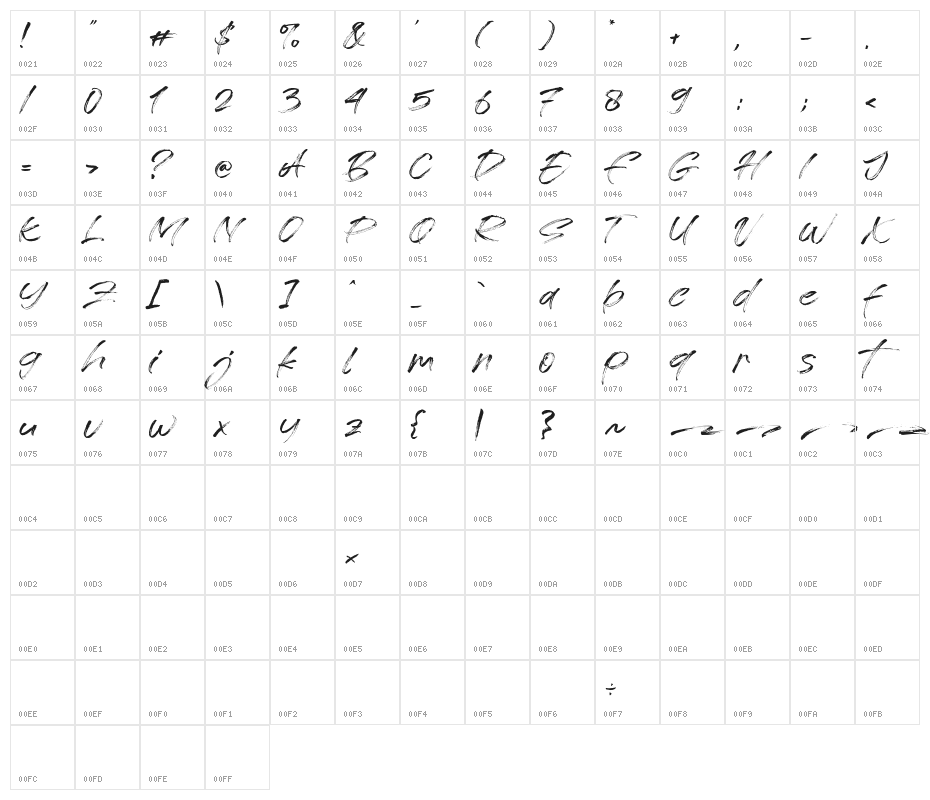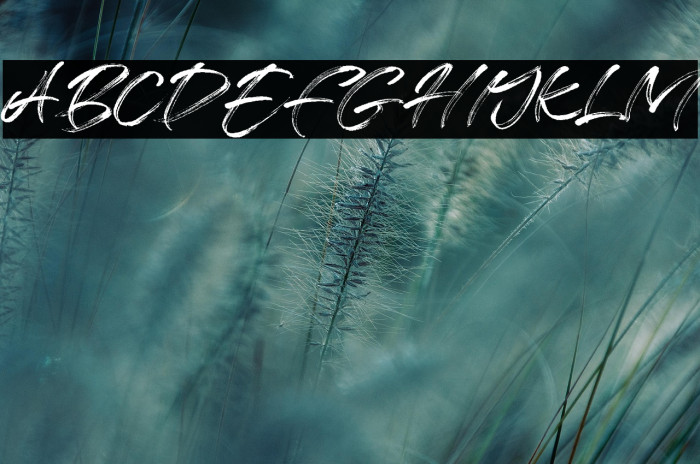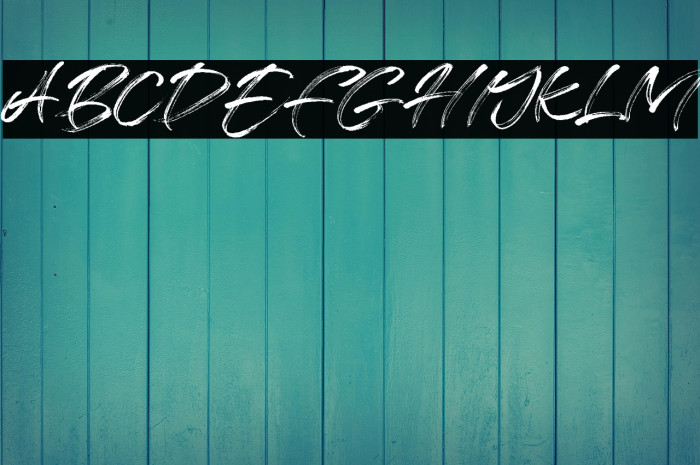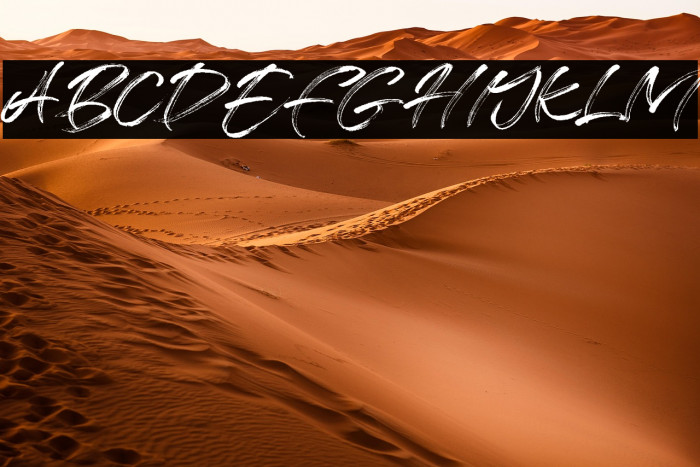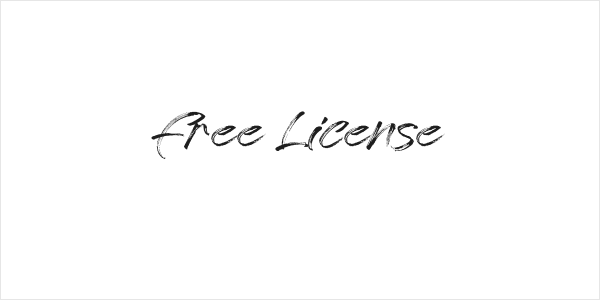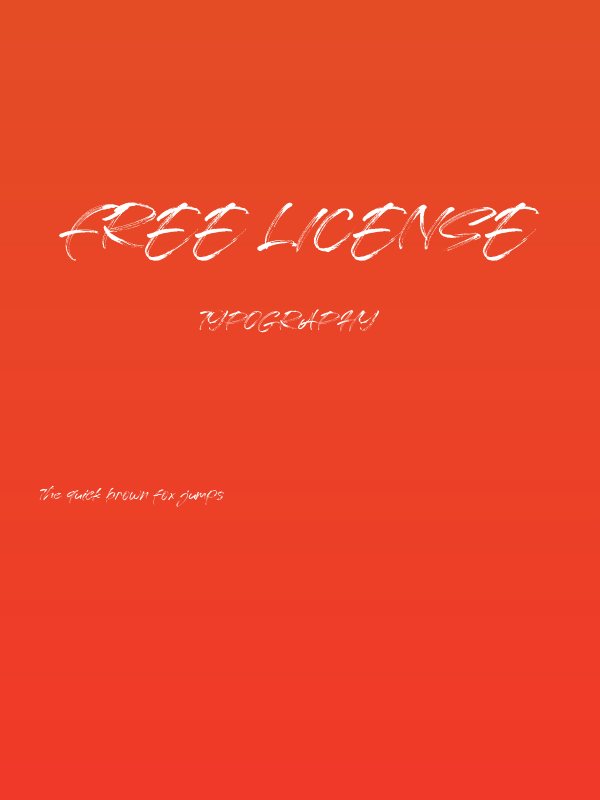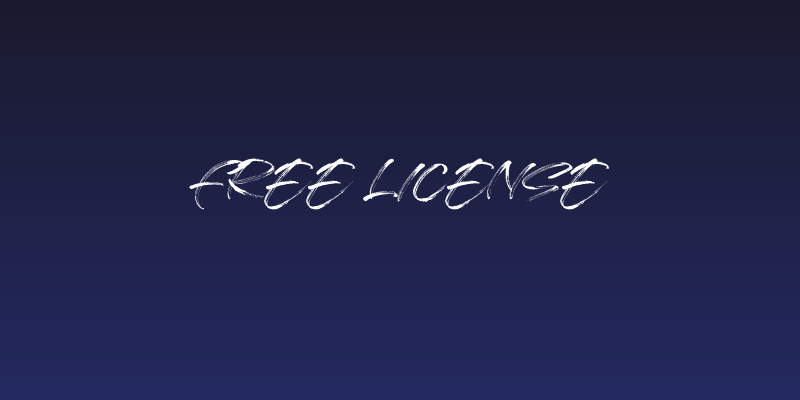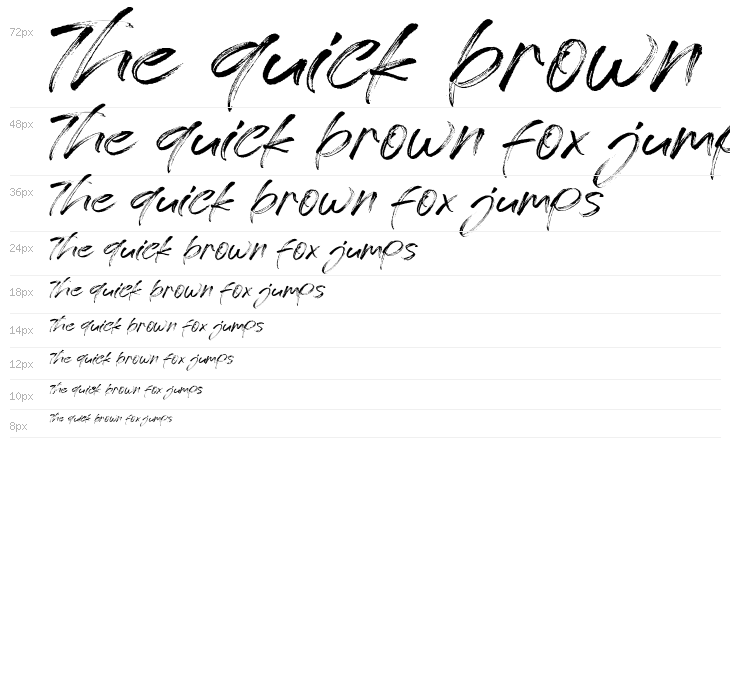
Free License Font
Free License Description
This font features a dynamic and expressive brush script style, characterized by its fluid and energetic strokes. The letters are crafted with a natural hand-drawn appearance, giving it a personal and artistic touch. The uppercase and lowercase letters maintain a consistent flow, with varying stroke widths that add a sense of movement and vitality. The numbers and special characters are equally expressive, complementing the overall aesthetic. This font is ideal for projects that require a bold and creative statement, such as branding, packaging, and artistic designs.
| Use Case | Logos, Headlines, Artistic designs |
| Proposed Projects | Ideal for branding, packaging, artistic designs, and creative projects that require a bold statement. |